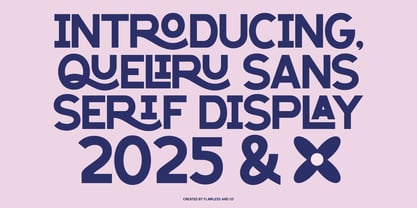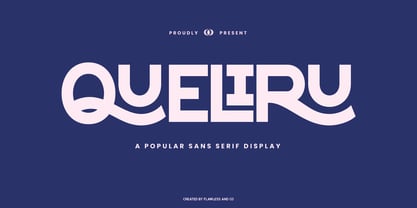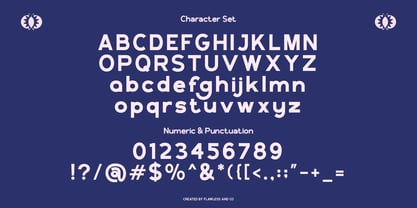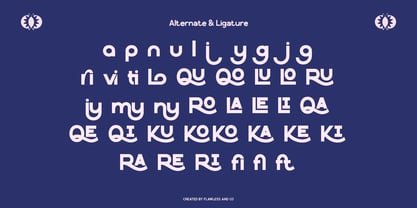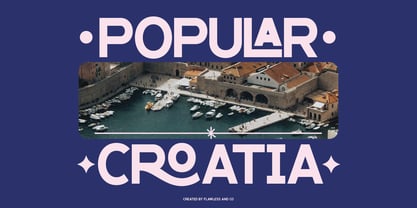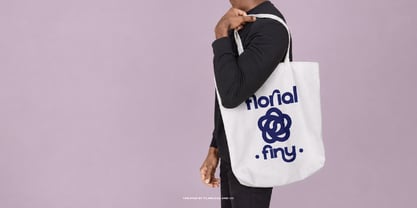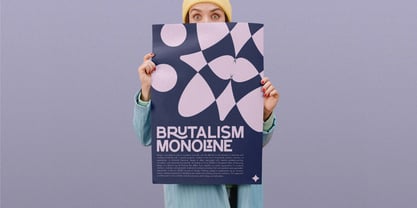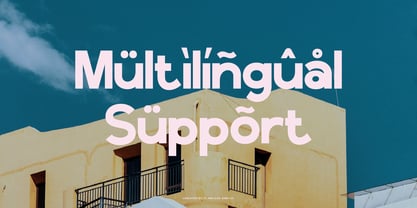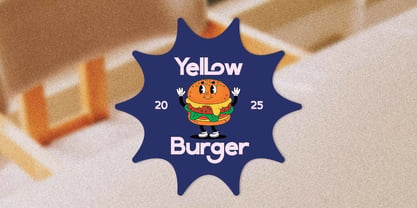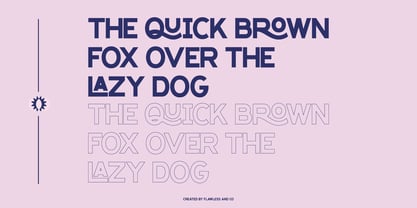
Queliru
by Flawlessandco
The Queliru Font Family was designed by Achmad Yani and published by Flawlessandco. Queliru contains 1 styles. More about this family
Queliru is a bold sans serif display font that exudes strength and modernity. With its clean lines and impactful presence, this font is suitable for branding, headlines, posters, sports designs, advertising, and social media graphics. Its bold structure makes it perfect for projects that require a powerful and eye-catching look.
Features :
Multilingual, Uppercase alphabet A-Z, Lowercase alphabet a-z, Numbers 0-9, Some punctuation,
Alternates & Ligatures